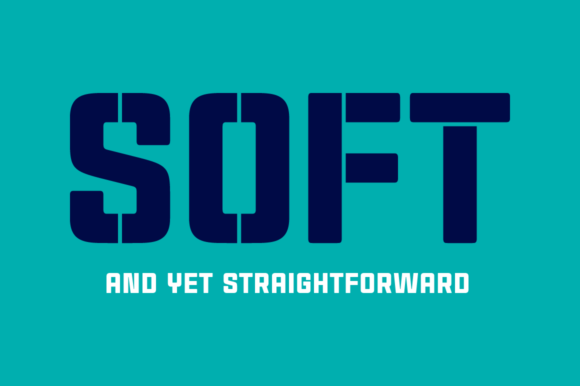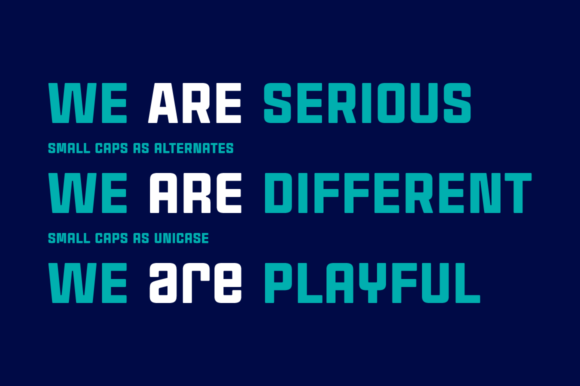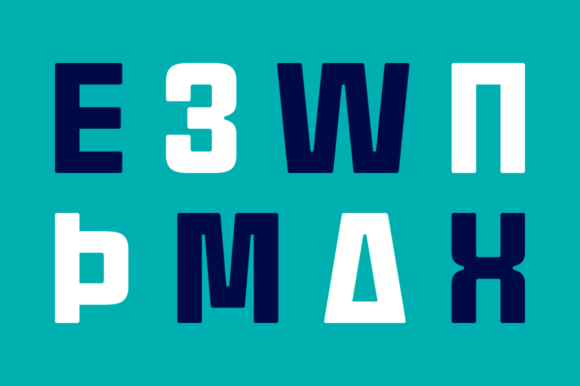
Introduction to Cintra Family Font
Cintra font family has been designed for Graviton Font Foundry by Pablo Balcells in 2014.
It is a sans serif, bold, geometric typeface with subtle rounded angles, which provides a soft, pleasent appearence Cintra consists of 8 styles.